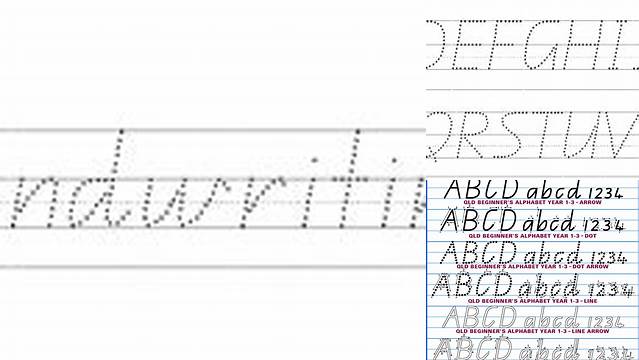
Are you looking for a charming, educational font that captures the essence of early childhood handwriting? Well, guys, you're in luck! This comprehensive guide dives into the world of the Queensland handwriting font, a beloved choice for educators, parents, and anyone who appreciates a touch of Australian flair in their designs. We'll cover everything from where to find free downloads to how to use the font effectively in your projects. So, buckle up, and let's explore the wonderful world of Queensland handwriting!
1. What is the Queensland Handwriting Font? âïž
Firstly, what exactly is the Queensland handwriting font? This font is designed to mimic the handwriting style taught in Queensland schools, Australia. It's a simple, clear, and easy-to-read font that helps children learn how to form letters correctly. Its unique characteristics lie in the way the letters are formed, mimicking the specific strokes and joins used in Queensland classrooms. It is designed to be a guide to children in their learning process.
This isn't just any font; it's a pedagogical tool. Teachers and parents use it to create worksheets, learning materials, and other educational resources that align with the handwriting style kids are learning in school. The font closely follows the Australian Curriculum handwriting guidelines, making it super helpful for kids in Queensland and beyond. The design emphasizes clear letter formation, consistent spacing, and a natural flow, which is crucial for early literacy development. By using this font, you're not just making your documents look nice; you're also reinforcing the handwriting skills that children are learning in their classrooms. The font's clarity helps children easily recognize and replicate letter forms, making handwriting practice a lot more effective and less frustrating. It promotes a good foundation for literacy and communication. It is a good font to give children a head start on their educational journey.
For those who might be new to this handwriting style, it's worth mentioning that it's a connected style, meaning letters often connect to each other, which helps improve handwriting fluency. This is a key feature that distinguishes it from other handwriting fonts, and it's a major reason why it's so popular among educators. Understanding these key characteristics is vital to knowing whether this font is right for your needs, and helps you decide how to effectively incorporate it into your teaching or design. It's like getting a cheat sheet for creating fantastic educational materials that are both visually appealing and pedagogically sound. Overall, using this font is a way to support and enhance children's writing capabilities. And remember, the best part is that there are many free download options available, which makes it accessible to everyone. This allows you to make great strides in making your children love writing.